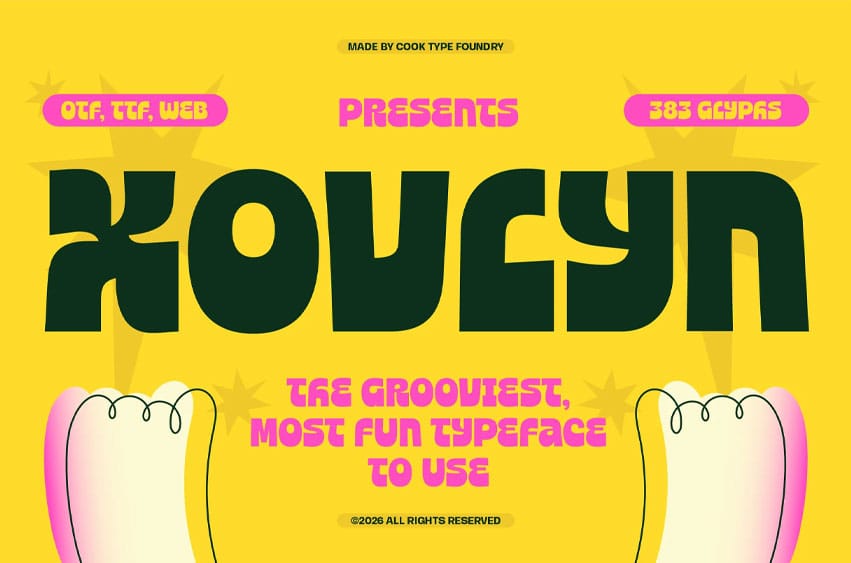
Xovlyn Font is a groovy display font featuring bold, curved, and experimental letterforms that create a fun, dynamic, and eye-catching impression. It’s perfect for headlines, posters, branding, packaging, and creative content that aims to stand out with personality.
It is perfect for headlines, logotypes, magazines, packaging, quotes, movies, games, cover albums, book covers, and flyers, it’s a perfect solution for creating eye-catching designs that stand out in any context.